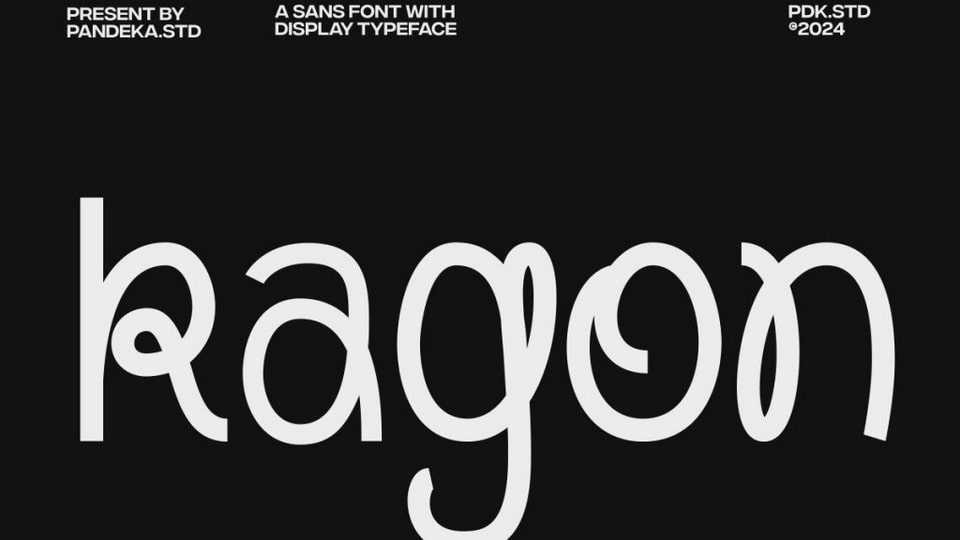
Download Kagon font, a casual sans that is the perfect combination of strength and play. Kagon is an experimental and unique font with stylish curves and a modern visual design.